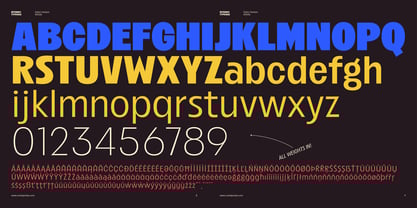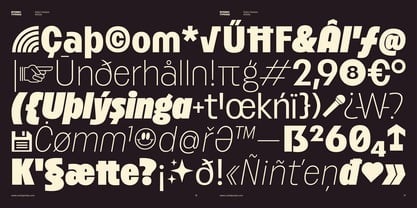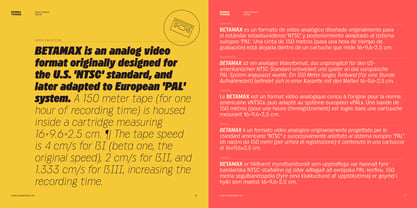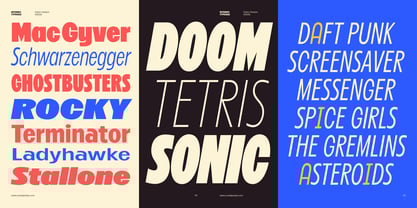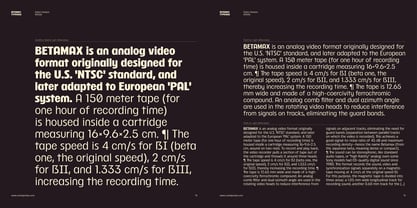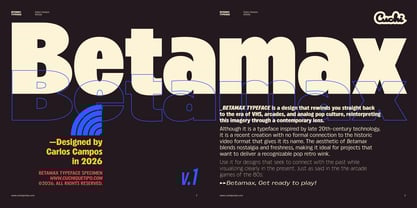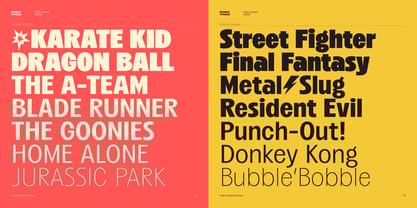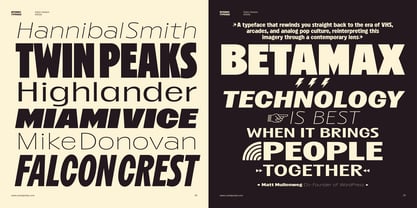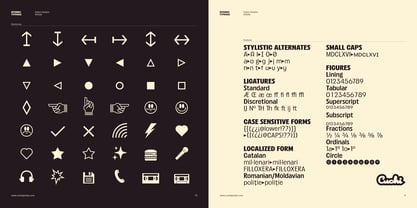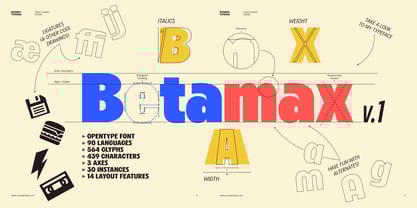
Betamax
by Cuchi, qué tipo
The Betamax Font Family was designed by Carlos Campos and published by Cuchi, qué tipo. Betamax contains 30 styles and family package options. More about this family
BETAMAX TYPEFACE is a design that rewinds you straight back to the era of VHS, arcades, and analog pop culture, reinterpreting this imagery through a contemporary lens. Although it is a typeface inspired by late 20th-century technology, it is a recent creation with no formal connection to the historic video format that gives it its name. The aesthetic of Betamax blends nostalgia and freshness, making it ideal for projects that want to deliver a recognizable pop retro wink. Use it for designs that seek to connect with the past while visualizing clearly in the present. Just like the arcade games of the 80s: "BETAMAX, GET READY TO PLAY!".
Designers: Carlos Campos
Foundry: Cuchi, qué tipo